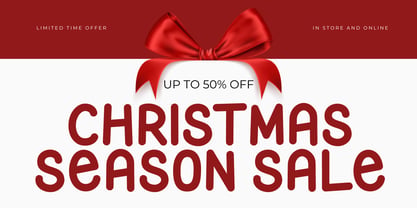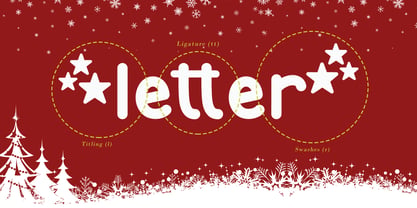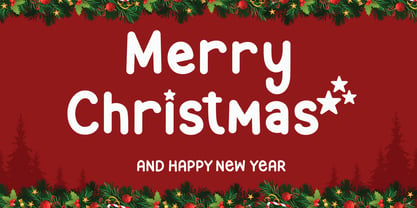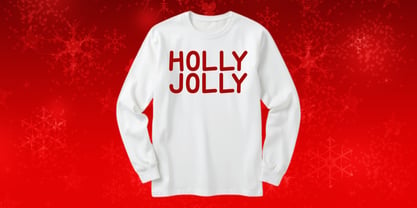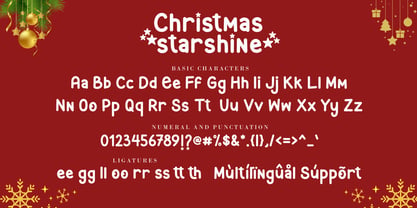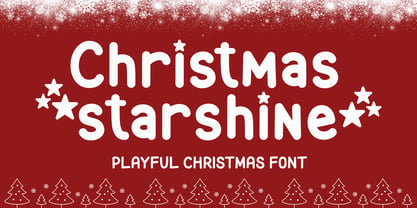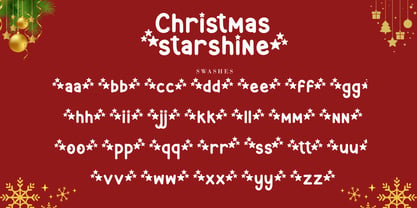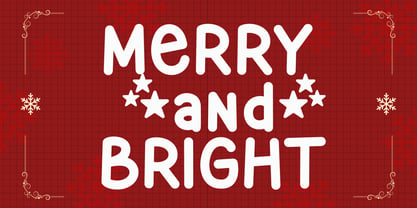
Christmas Starshine
Die Schriftfamilie Christmas Starshine wurde von Agung Eko Nugroho entworfen und von AEN Creative Studio veröffentlicht. Christmas Starshine enthält 2 Stile und Familienpaketoptionen. Mehr über diese Familie
Celebrate the season with a sparkle of joy! Christmas Starshine is a playful, bold holiday font designed to add festive cheer to your designs. Each letter bounces with personality, and the adorable star accents on the letters i and j add a magical twinkle that captures the true spirit of Christmas. Whether you’re crafting greeting cards, designing social media posts, or creating DIY holiday decor, Christmas Starshine brings a bright and joyful touch to every project. Its friendly curves and bold strokes make it both eye-catching and easy to read, even in smaller sizes. Perfect for crafters, designers, and anyone who loves the holiday season, this font instantly adds warmth and happiness to your work. Use it for Christmas cards, party invitations, ornaments, gift tags, apparel, or even branding for seasonal products. Make your words shine this holiday season with Christmas Starshine – the font that brings festive magic to life in every design!
Christmas Starshine